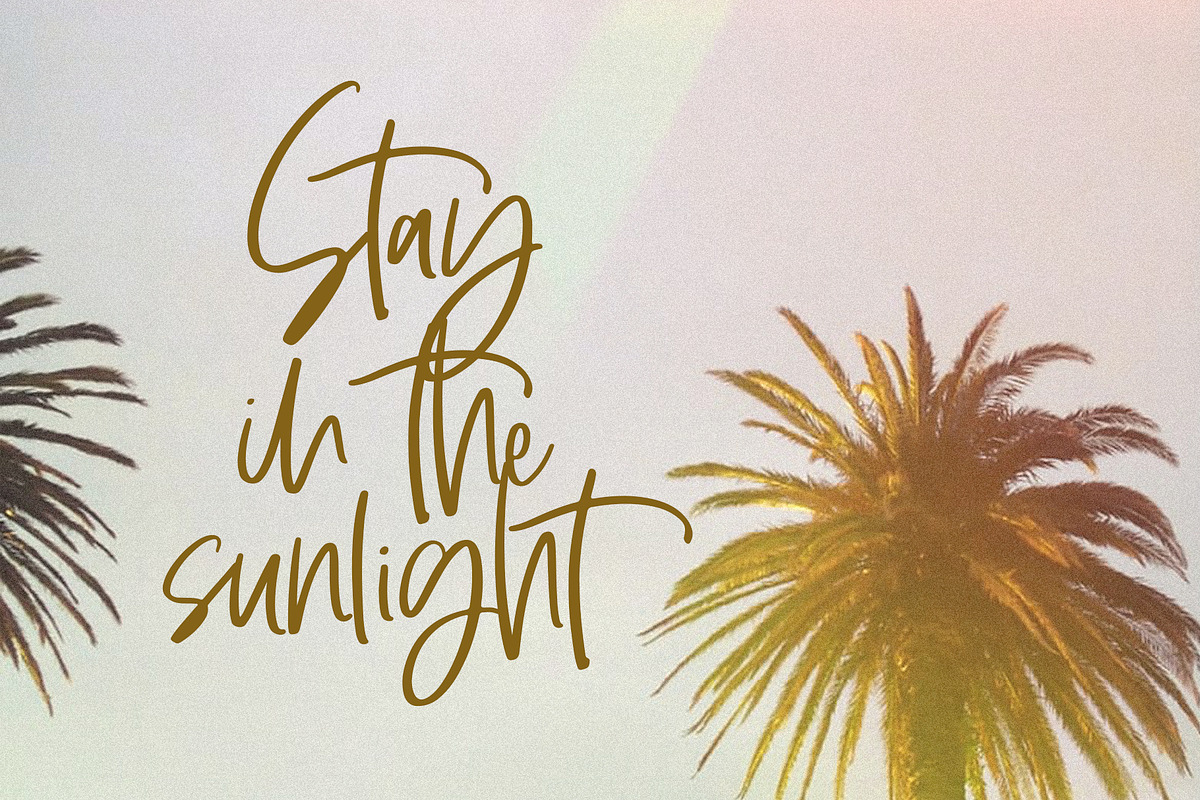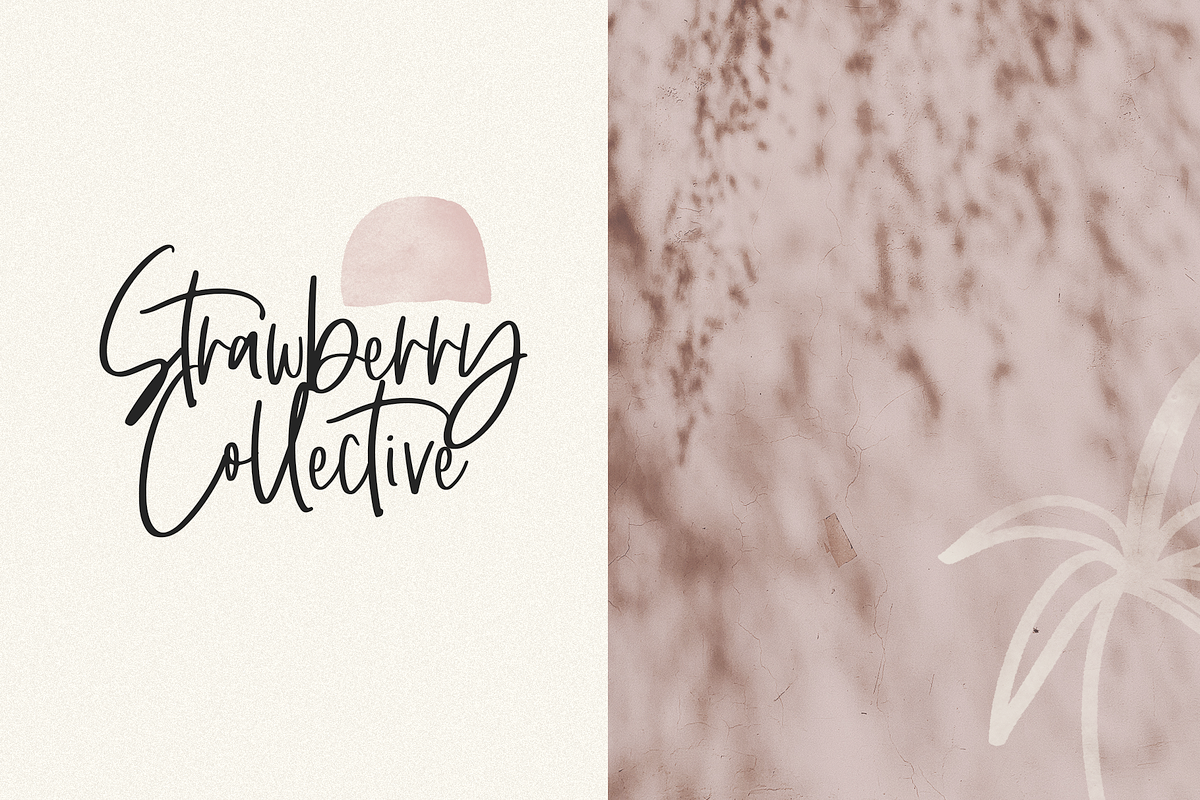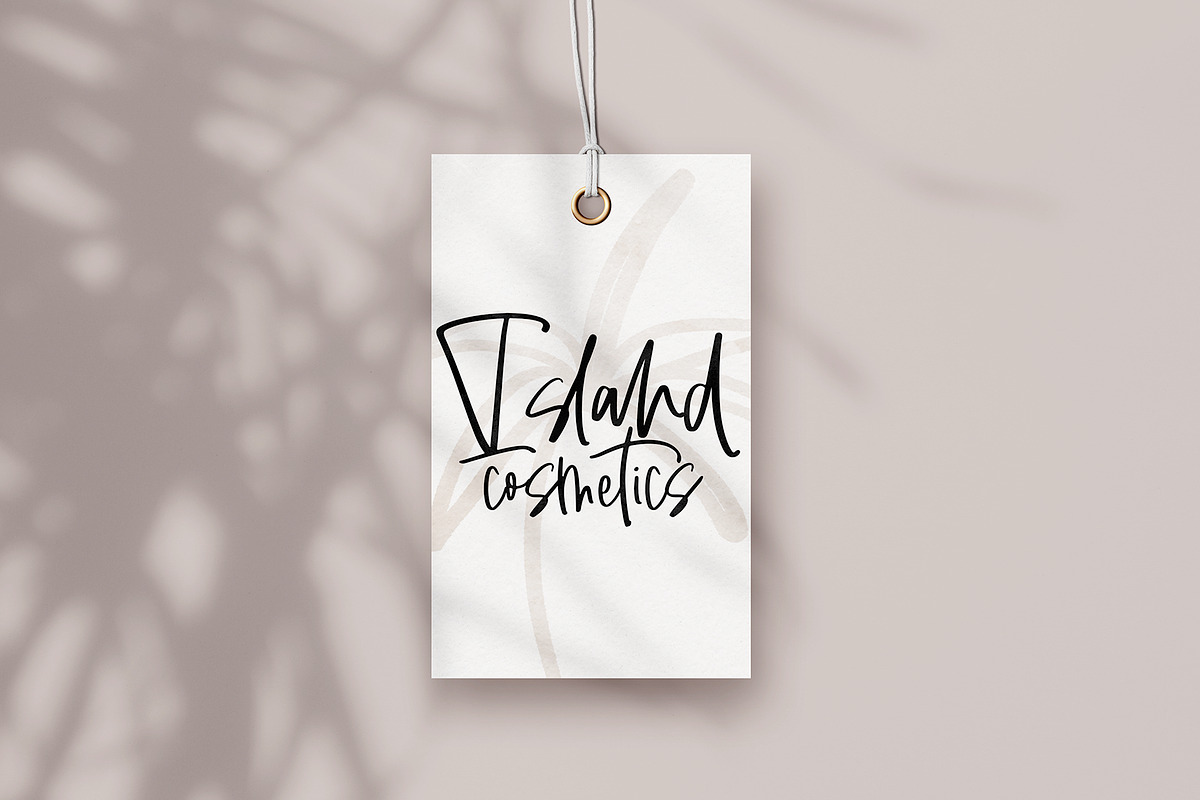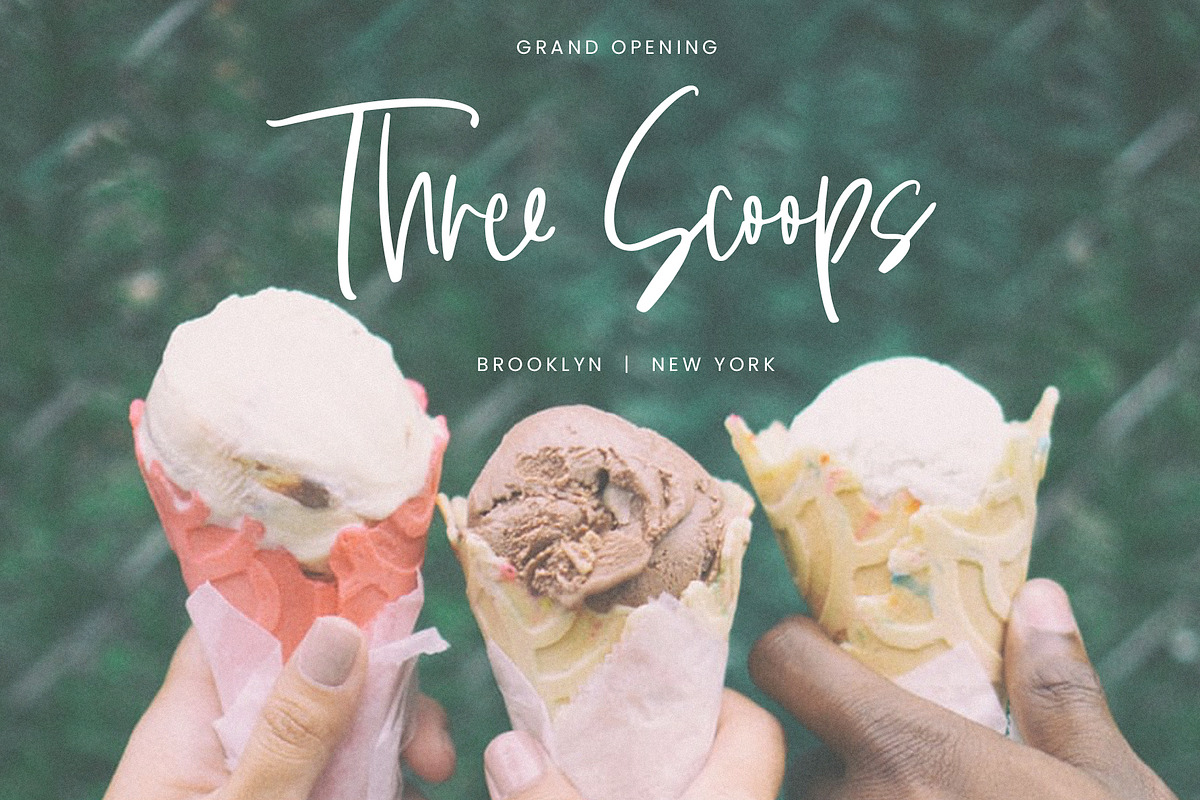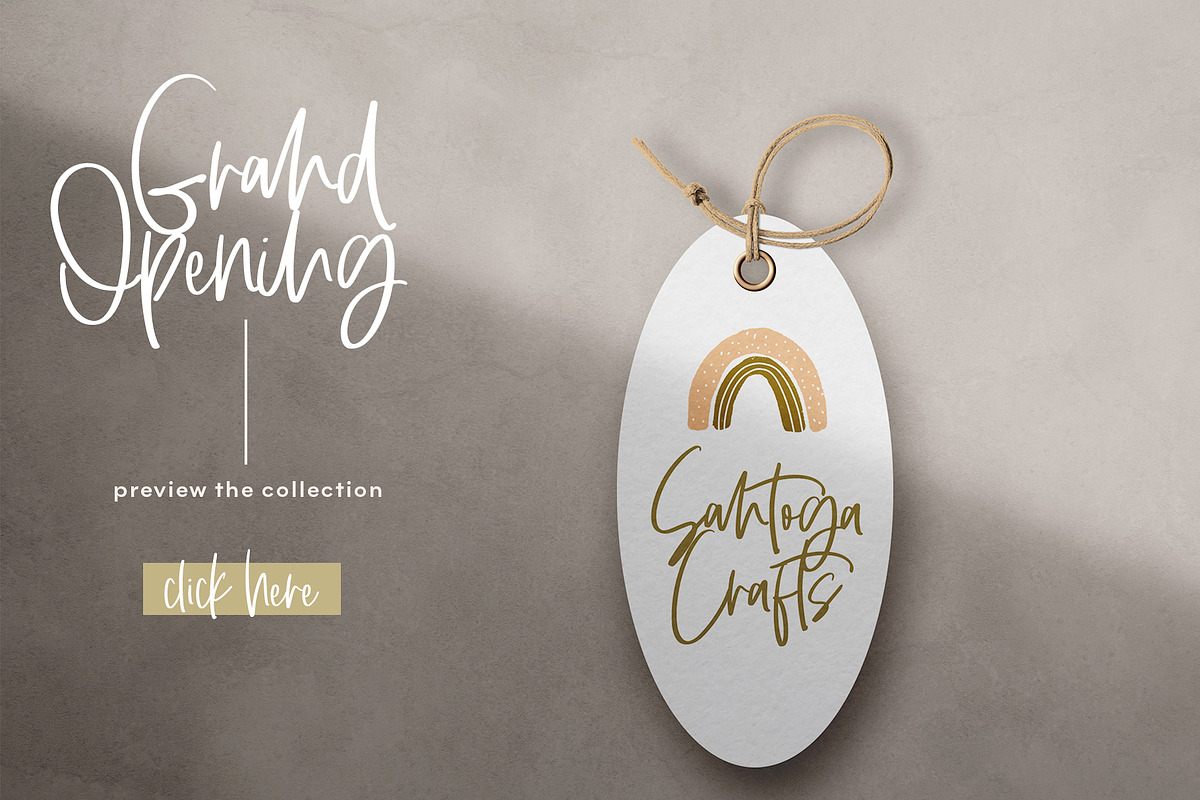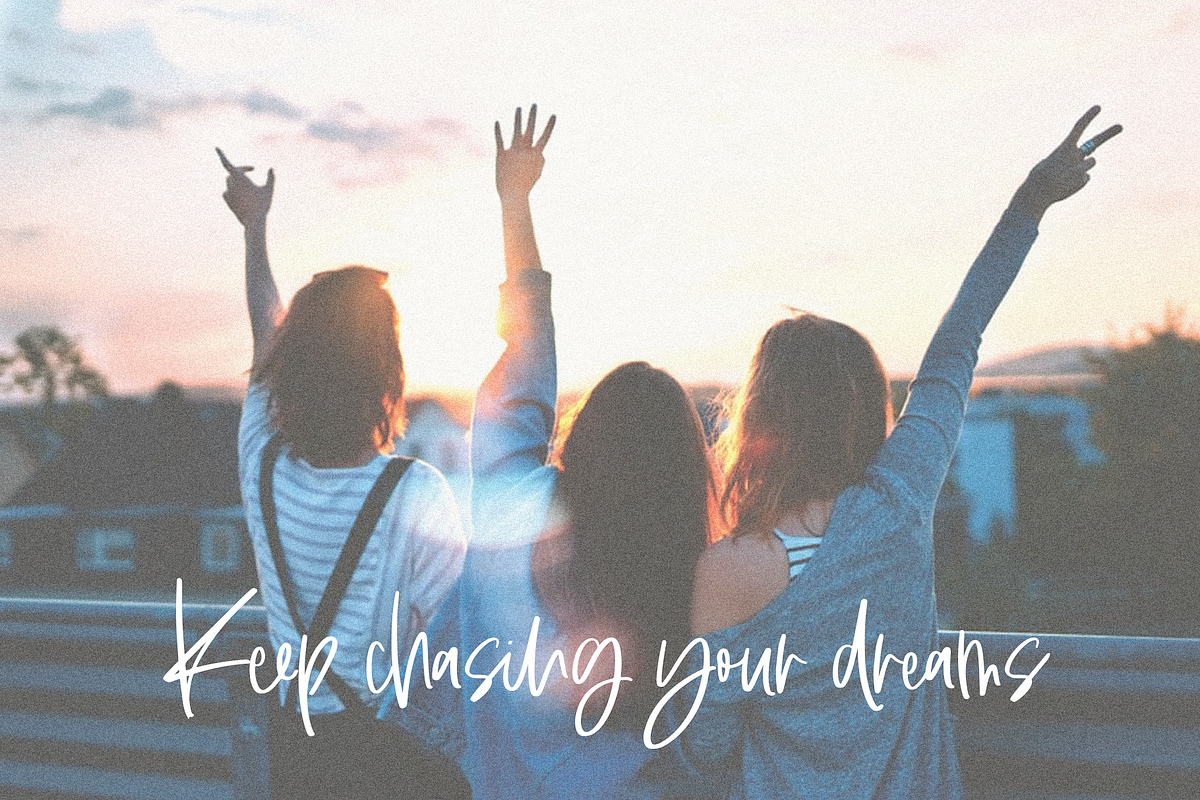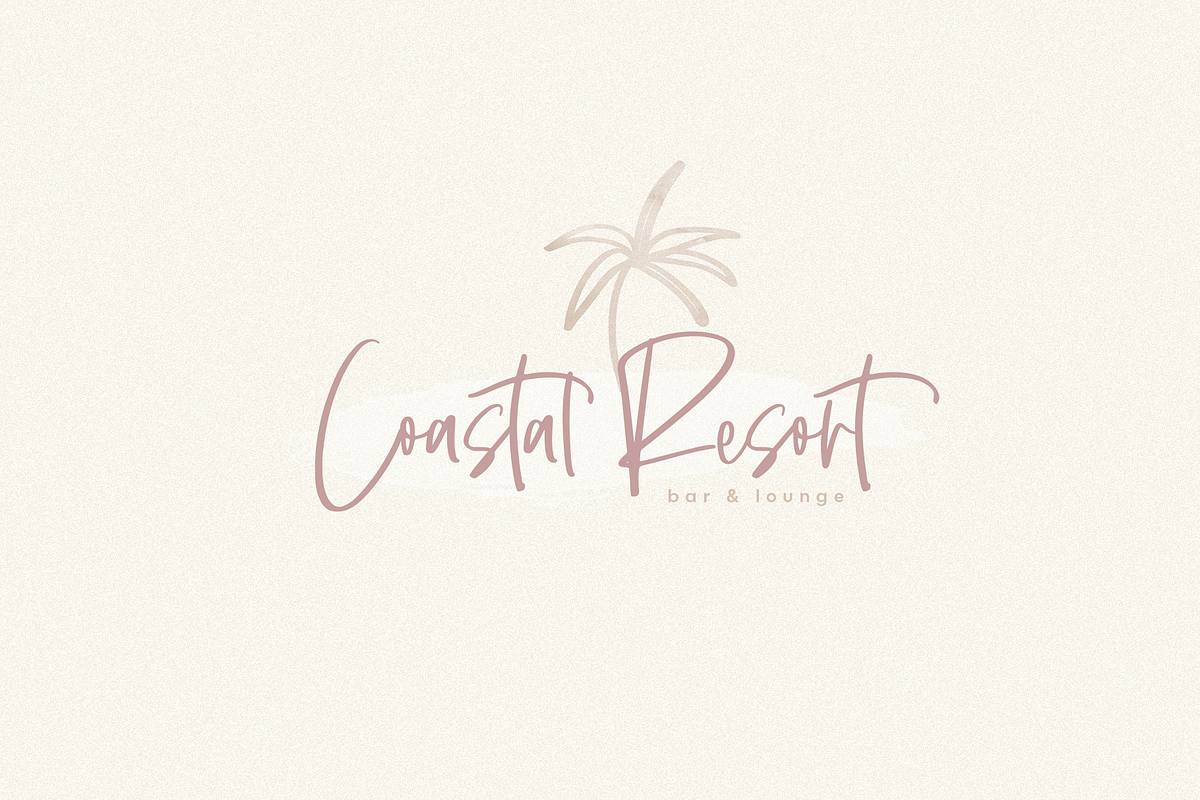
Santonelly | A Script Font
Santonelly is handwritten font with a modern luxury feel. The letters are effortlessly chic.
Santonelly is perfect for modern projects, headings, blogs, logos, brandings, invitations and more!
Accent characters are included.